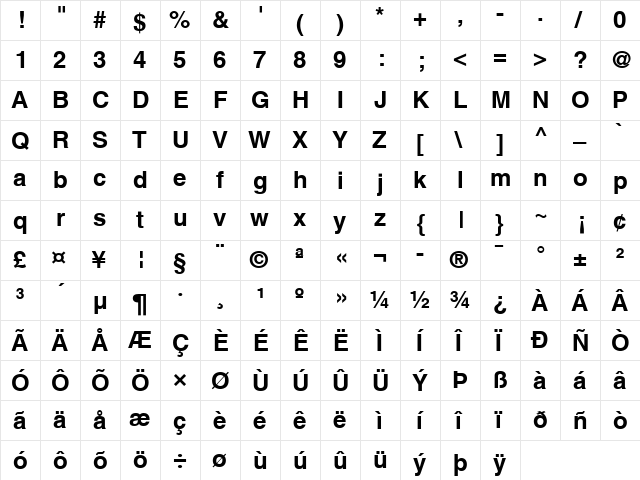
Helonia Bold
Design Context for Helonia Typeface
Helonia offers clean, dependable letterforms without strong stylistic allegiance, making it a practical choice for designers who need flexibility. The heavy weight commands attention and anchors typographic hierarchies.